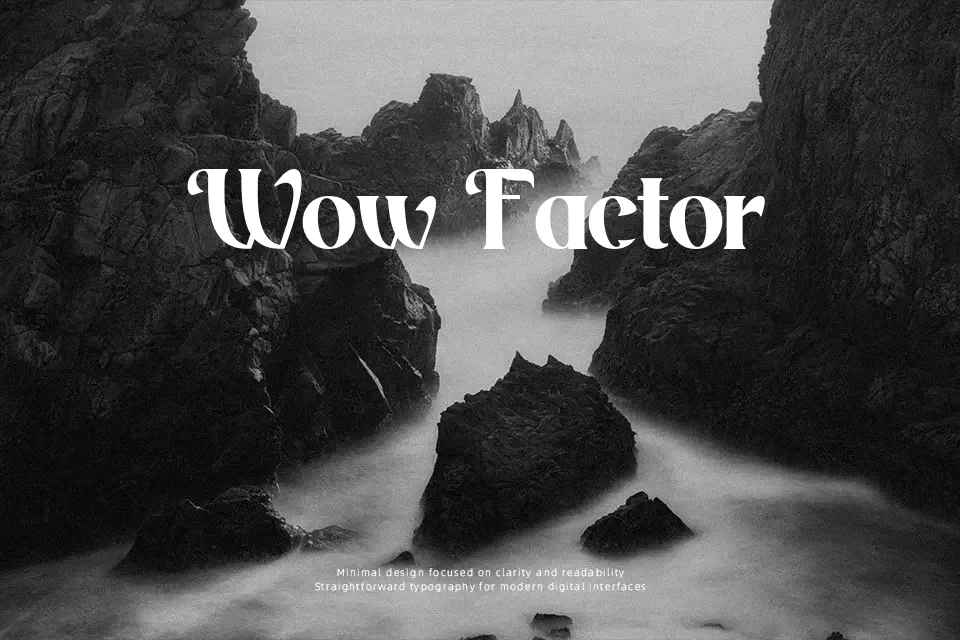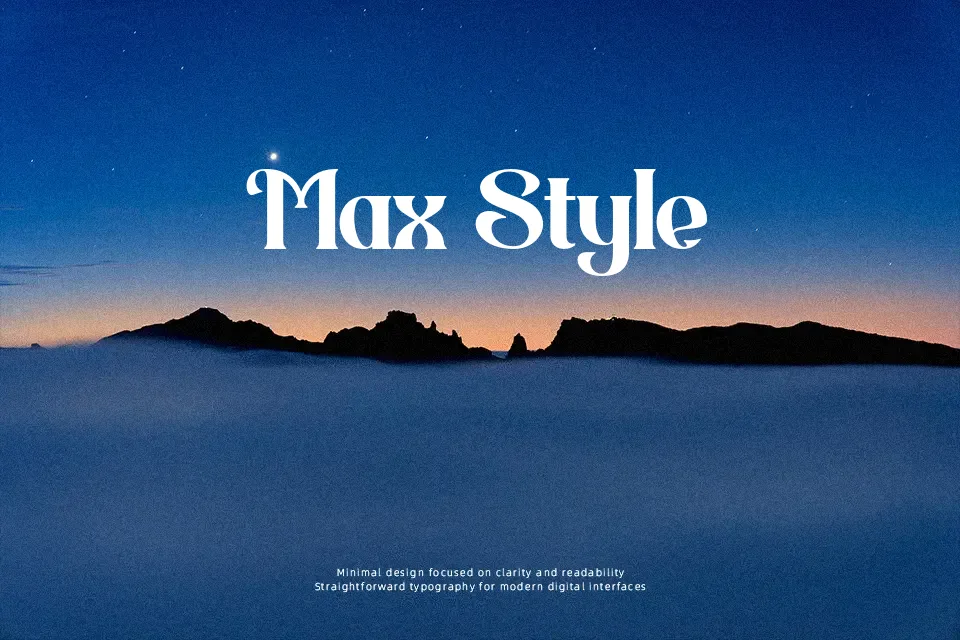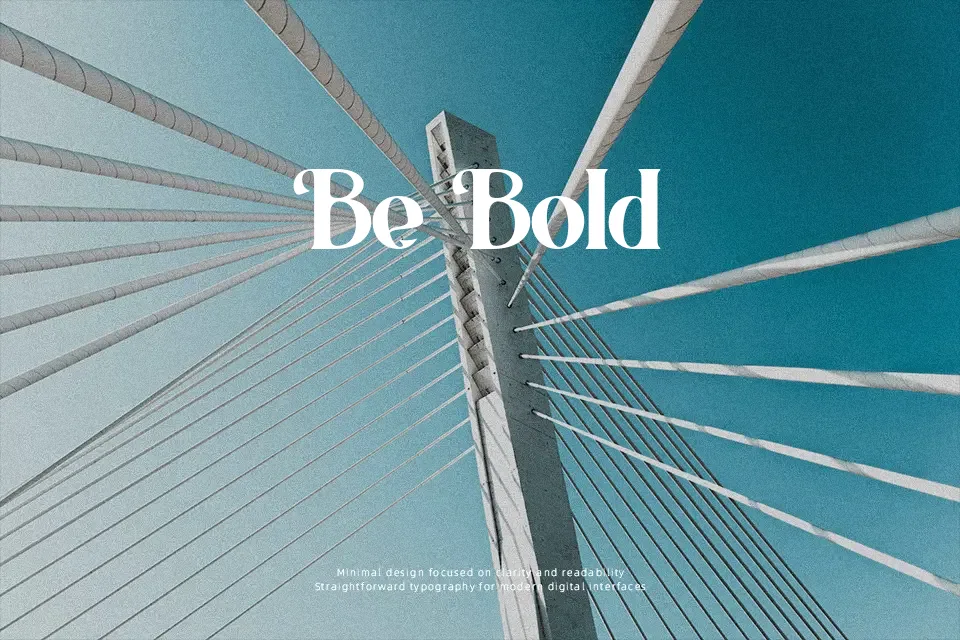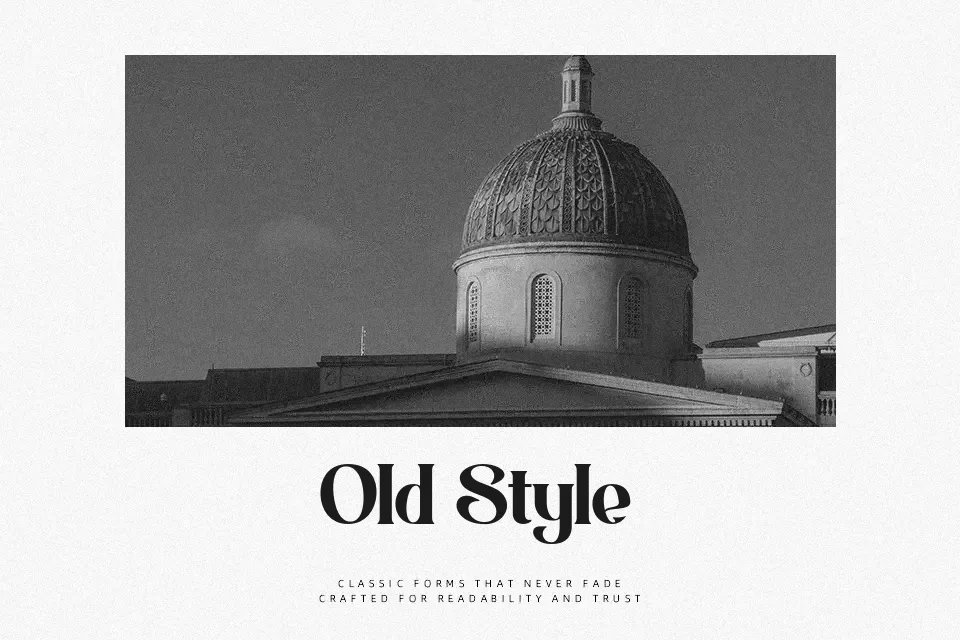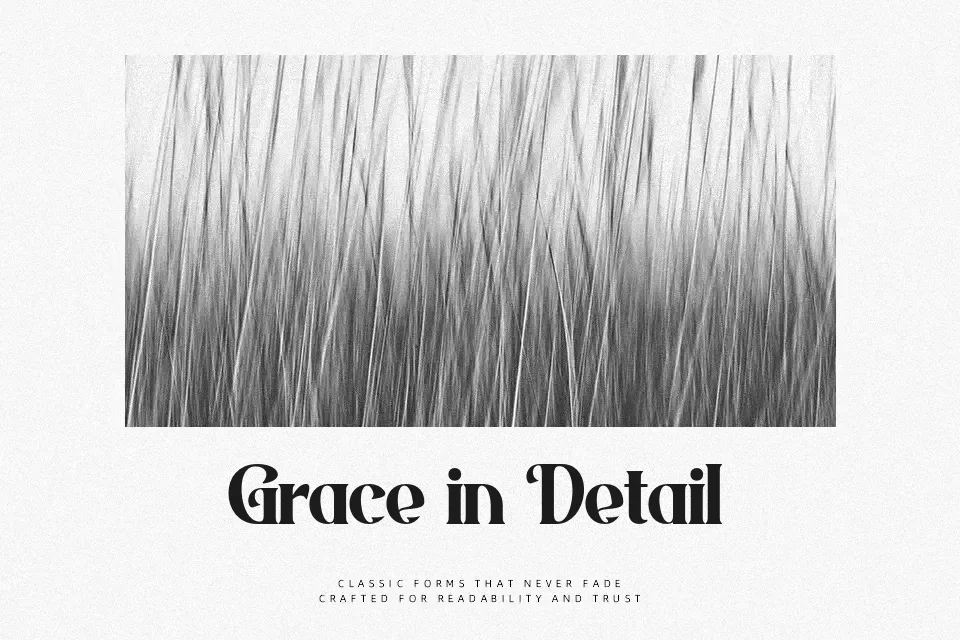
Broodim Font
Designed by twinletter
Broodim is a groovy serif display typeface with high contrast strokes, rounded curves, and distinctive terminals that create a lively rhythm on the line. Letters feel chunky yet controlled, so large sizes on posters, music artwork, and nostalgic branding lockups tend to look energetic rather than messy. Because of the exaggerated shapes and tight spacing, it works best for short words, logos, and statements, not long paragraphs or small captions. If you like retro serif display fonts with a slightly funky edge, this one sits somewhere between classic 70s lettering and modern Instagram-ready title fonts.
Groovy music or event posters,
Retro branding wordmarks and logotypes,
Bold social media title cards and story covers
Body text or long reading layouts,
Very small UI labels or dense data tables,
Ultra-formal corporate or minimalist editorial systems